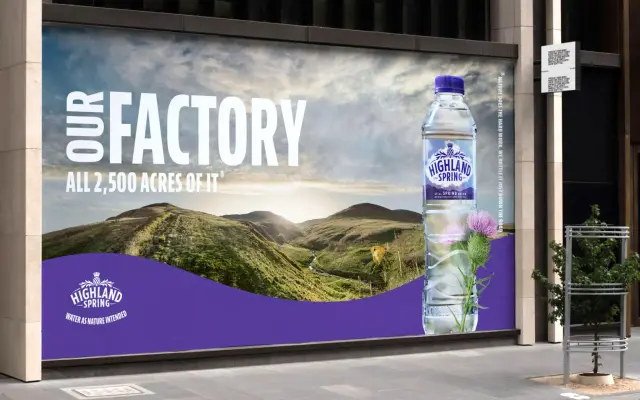
JAF Bernini Sans
Just Another Foundry · Tim Ahrens & Shoko Mugikura · 2012
A large type system by Tim Ahrens and Shoko Mugikura, split into a neutral text-oriented sub-family and a more informal companion with alternate letterforms, each spanning four widths and five weights.
JAF Bernini Sans comprises two distinct sub-families: JAF Bernino Sans, with finely balanced weight distribution and open shapes for text and display work, and JAF Bernina Sans, a friendlier variant featuring round dots and a double-storey g. Each sub-family runs across four widths — Regular, Narrow, Condensed and Compressed — and five weights from Light to Extrabold, all with italics, giving designers eighty styles in total. The system won TDC and Communication Arts awards in 2012 and has been used in campaigns including Highland Spring.
A humanist sans with open apertures and balanced weight distribution suited to text; the informal Bernina Sans sub-family with round dots and double-storey g reinforces its humanist leanings.